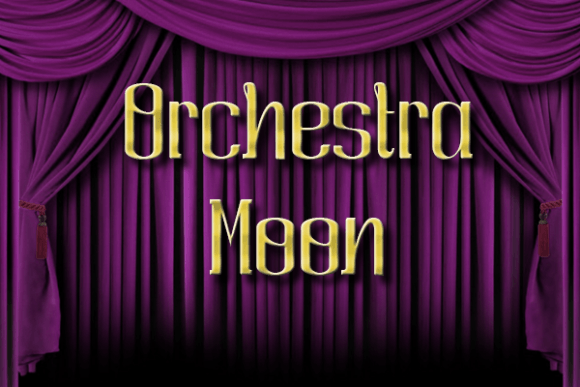
Introduction to Glabori Font
Have you ever stared at a blank canvas, waiting for the perfect font to bring your creative vision to life? That’s exactly what I experienced when I stumbled upon the enchanting Glabori Font. Its sophisticated charm immediately caught my attention, and I couldn’t wait to see how it would elevate my design project.
As a designer, you understand the importance of having a reliable design resource at your fingertips. A high-quality font can make all the difference in conveying your message and leaving a lasting impression. That’s where the Glabori Font comes in – a versatile and elegant serif font that’s perfect for any creative project.
Whether you’re working on a free download or a high-end design, the Glabori Font is sure to add a touch of sophistication and glamour to your work. With its transparent background and high-quality design, you can trust that your project will look its best, every time.
Key Features of Glabori Font
- High-quality font design suitable for various creative projects, including graphic design, web design, and print materials.
- Features a transparent background, allowing for seamless integration with different design elements and backgrounds.
- Designed with a unique and modern aesthetic, the Glabori Font is perfect for designers looking to add a touch of sophistication to their work.
- High-resolution design, suitable for use in various resolutions and screen sizes, ensuring crisp and clear text rendering.
- Can be easily customized and edited using popular design software, including Adobe Illustrator and Photoshop.
- Perfect for designers and artists working on high-quality design projects, the Glabori Font is a valuable design resource.
Honest Review: Glabori Font
I recently had the chance to work with the Glabori Font for a design project, and I must say it’s been an interesting experience. This free download font has a lot to offer, especially for designers on a budget.
- High-quality design: The Glabori Font is well-designed and looks great in various contexts.
- Transparent background: This makes it easy to use the font in different design scenarios.
- Creative project potential: The font’s unique style makes it perfect for creative projects that require a touch of elegance.
- ⚠️ Limited font sizes: The font doesn’t support a wide range of font sizes, which can be a problem in certain design situations.
- ⚠️ Not ideal for body text: Due to its unique style, the Glabori Font is better suited for headings and titles rather than body text.
Overall, I would say that the Glabori Font is a great design resource for designers who need a high-quality font for creative projects. While it may have some limitations, its unique style and transparent background make it a valuable addition to any design library.
Glabori Font Overview
The Glabori Font is a versatile design resource ideal for creative projects. Its high-quality, transparent background makes it perfect for overlaying text or graphics on images.
Tips for Getting the Most Out of Glabori Font
Experiment with different font sizes, colors, and styles to achieve the desired look. Use the transparent background to create unique and eye-catching designs.
The Glabori Font is perfect for creative projects, such as social media graphics, blog posts, and presentations. Its high-quality design makes it suitable for various industries, including fashion, beauty, and lifestyle.